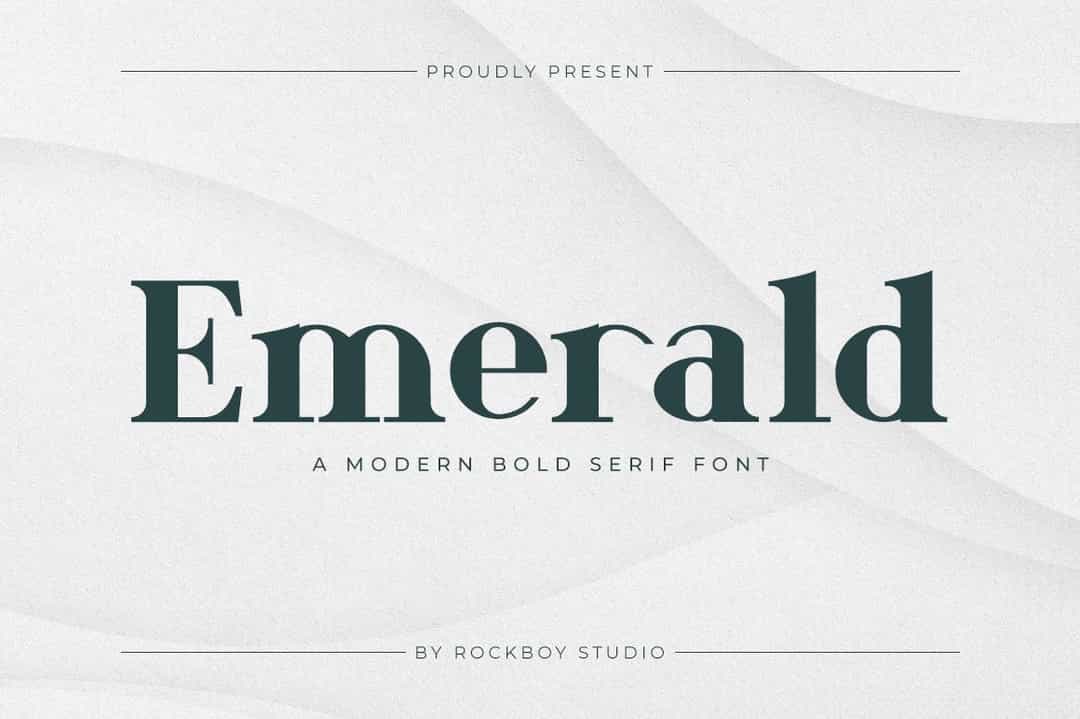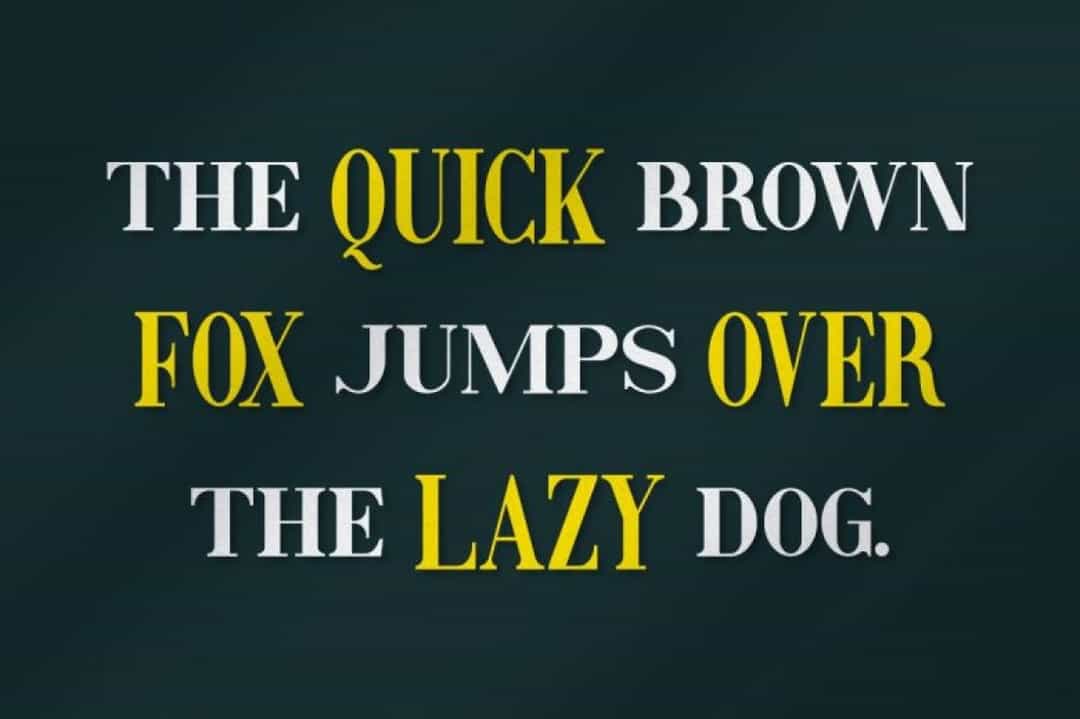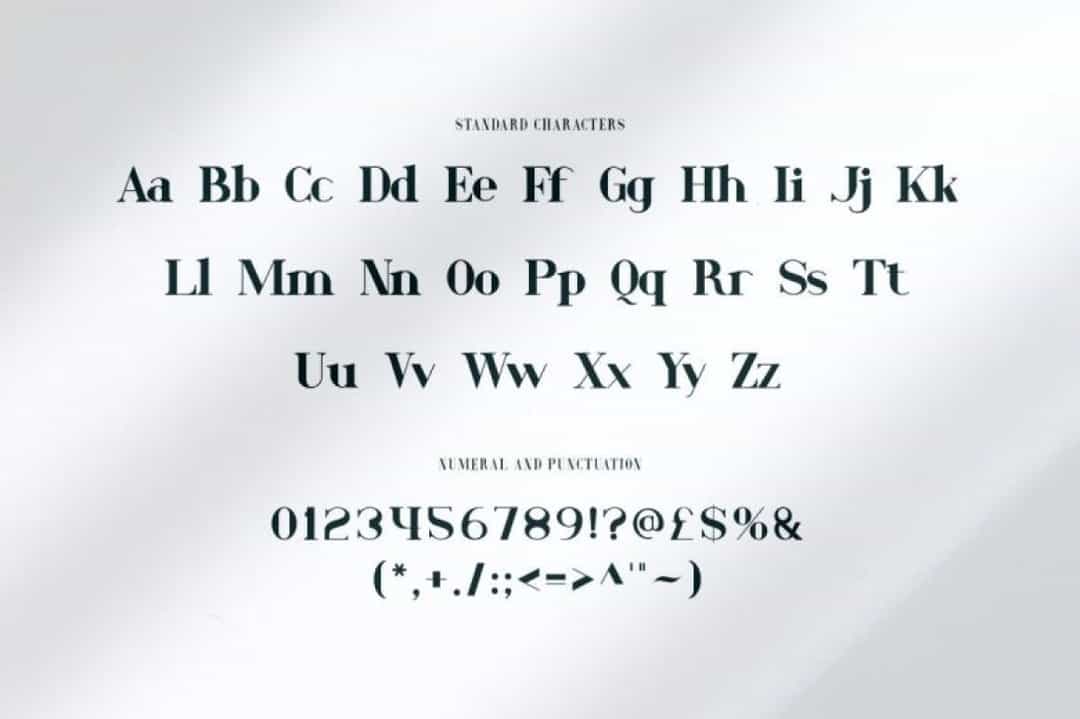
Emerald can be described as an elegant and delicate serif font. Use this contemporary serif font equipped with ligature and stylistic set for fashion websites for cooking, magazines and quotes posted to Instagram posts, label designs or anything else you need! Add Emerald into your favorite designs to be amazed at the result that emerges!